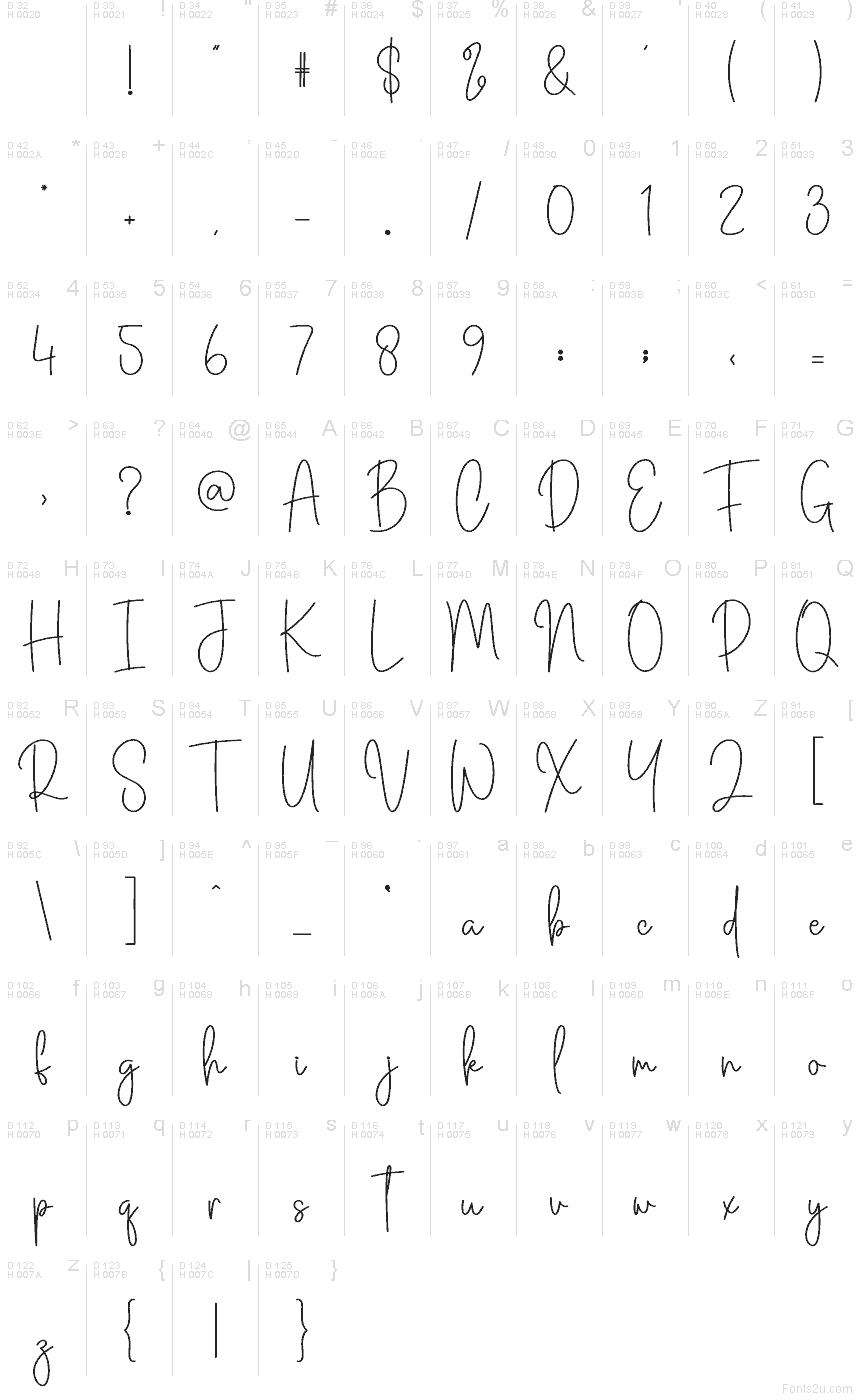
Santa Coming
Santa Coming font by Scratchones is a free handwritten typeface with a light, airy line that feels like it was inked on gift tags by hand. Tall, looping letters and relaxed spacing give it a festive, slightly whimsical charm without sliding into cartoonish territory. It’s soft, friendly, and instantly says “holiday season” while still staying clean and readable.
Using Santa Coming, you can add a cozy, personal touch to Christmas cards, gift labels, seasonal logos, party invitations, mug designs, social media posts, and holiday website banners. This free font shines at larger sizes where its delicate strokes can breathe. For polished layouts, pair Santa Coming with a simple geometric sans serif for body text to balance its playful script.